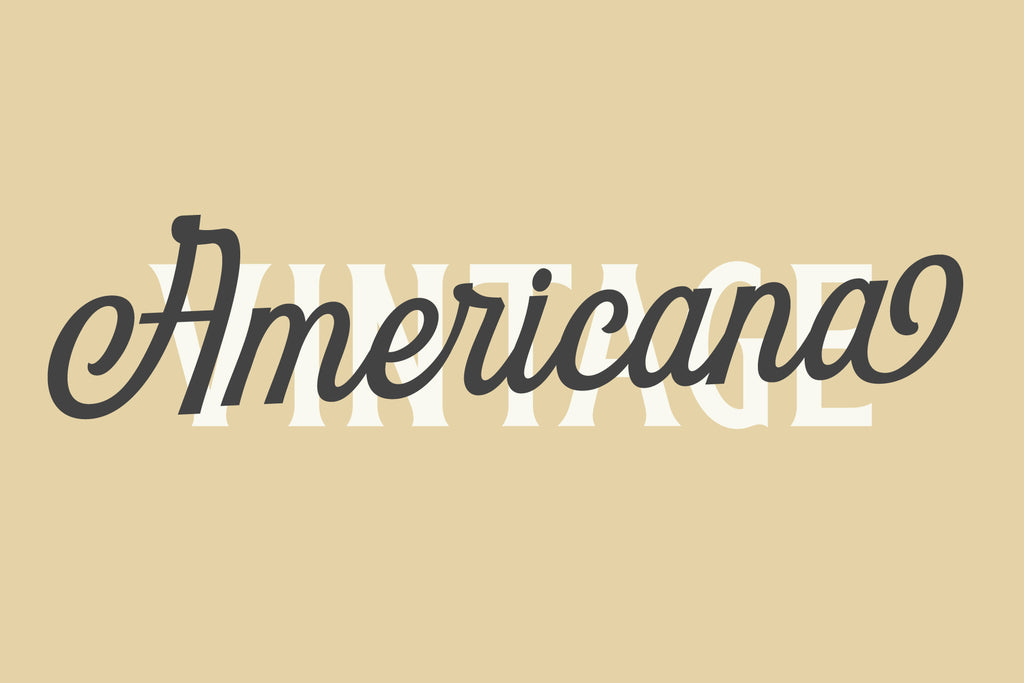
Hastington Script - Vintage Typeface
Introducing Hastington from Hustle Supply Co.
Hastington is a script typeface with a timeless classic style that is perfect for your next branding project. This product includes 3 styles (Regular, Rounded, Texture). Hastington comes loaded with tons of extra characters to help personalize each word.
• Western European Characters
• Tons of stylistic alternates
• 3 styles (Regular, Rounded, Textured)